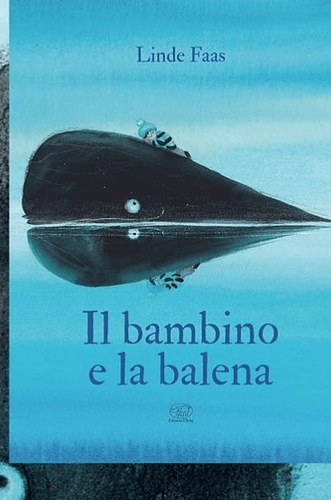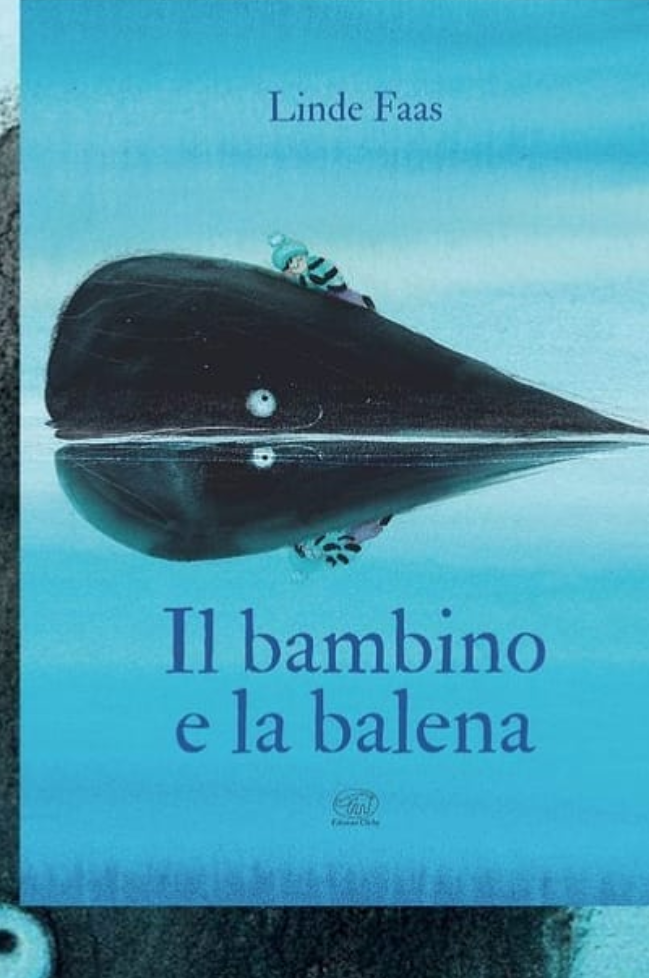
Hello, can someone help me found this font please ?
Garamond and Sabon are very similar, but the capital letters are shorter than the l.c. ascenders.However, the cap I in this title looks like it has been manually enlarged. The details of the other letters match Garamond: the curve on the crossbar of the e, the spur on the b, the wedge shape of the upper serifs, the up-curve of the terminal of the a.